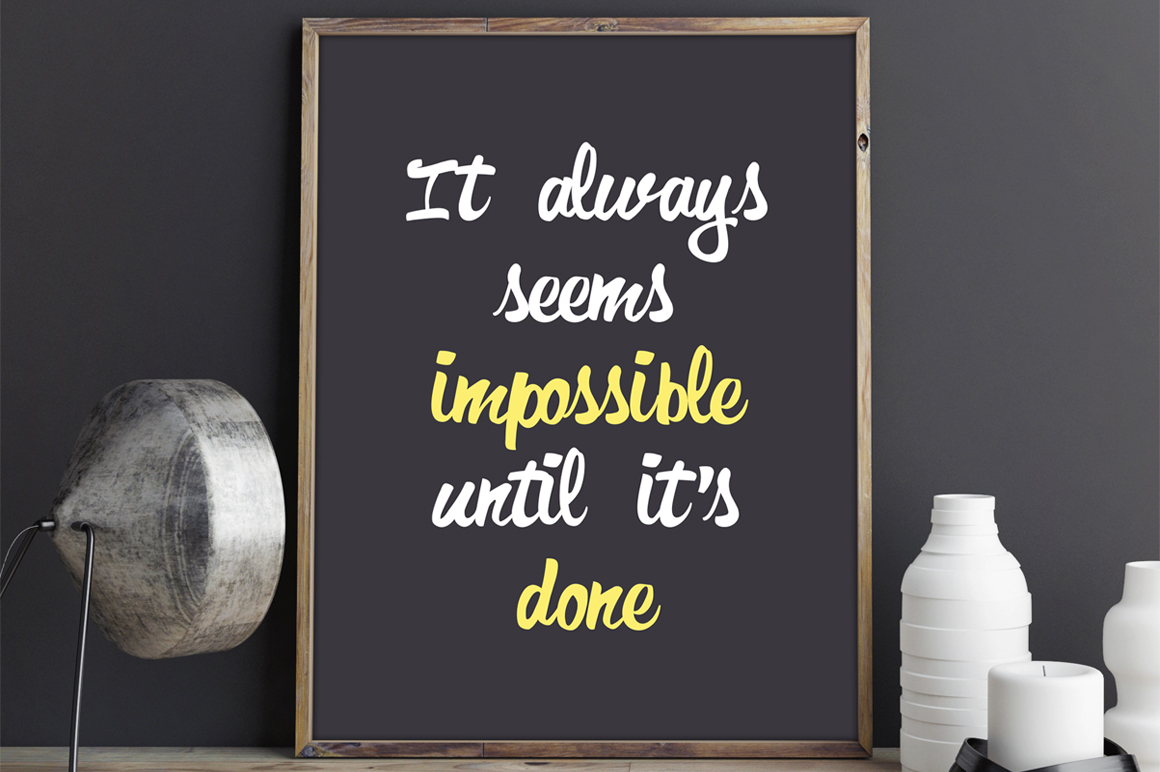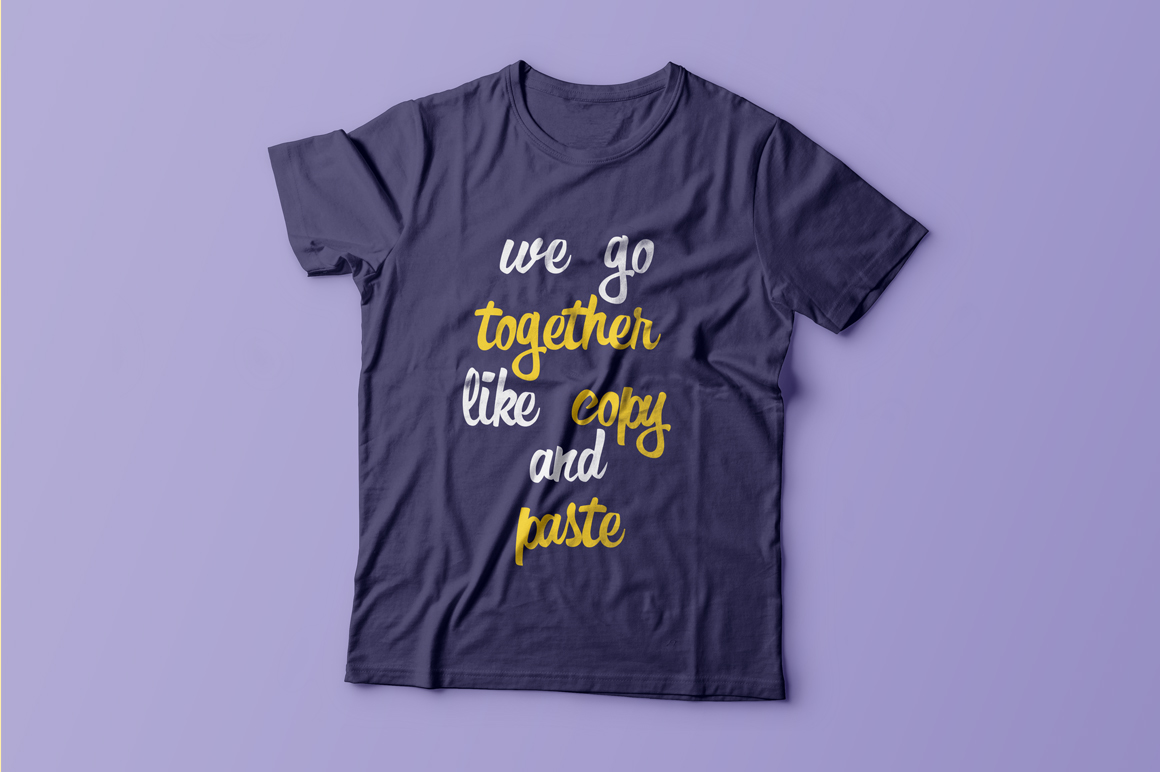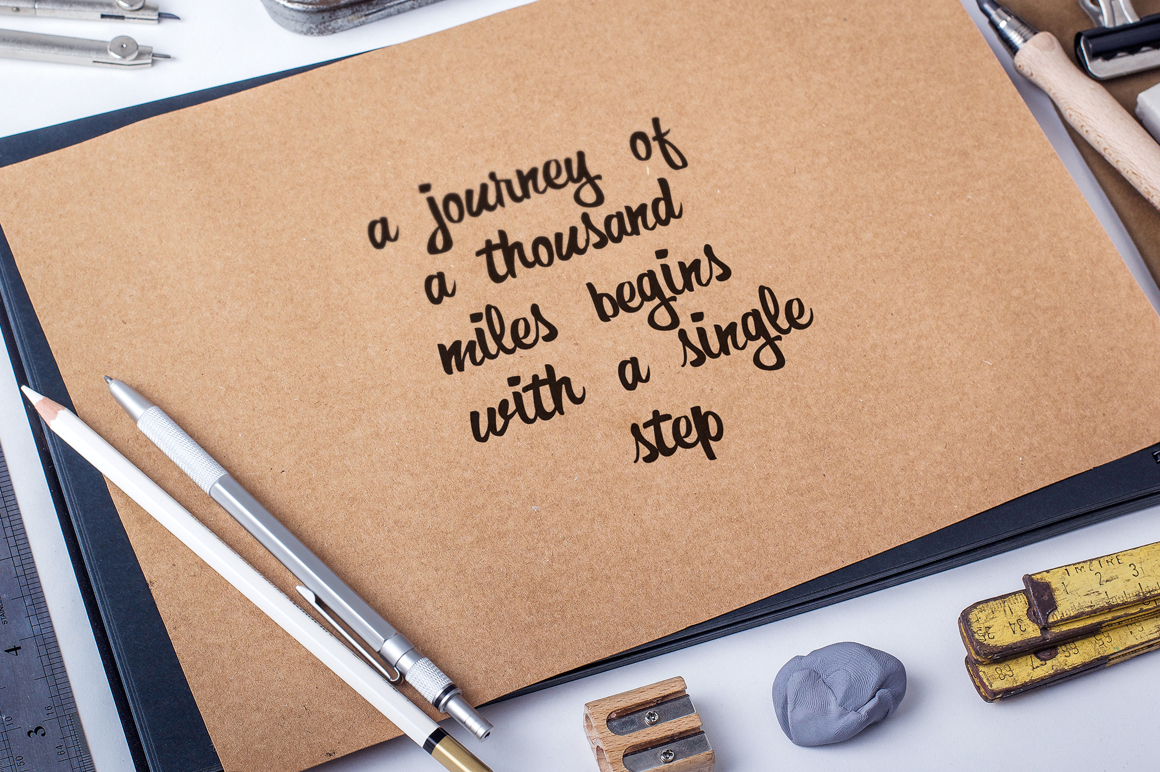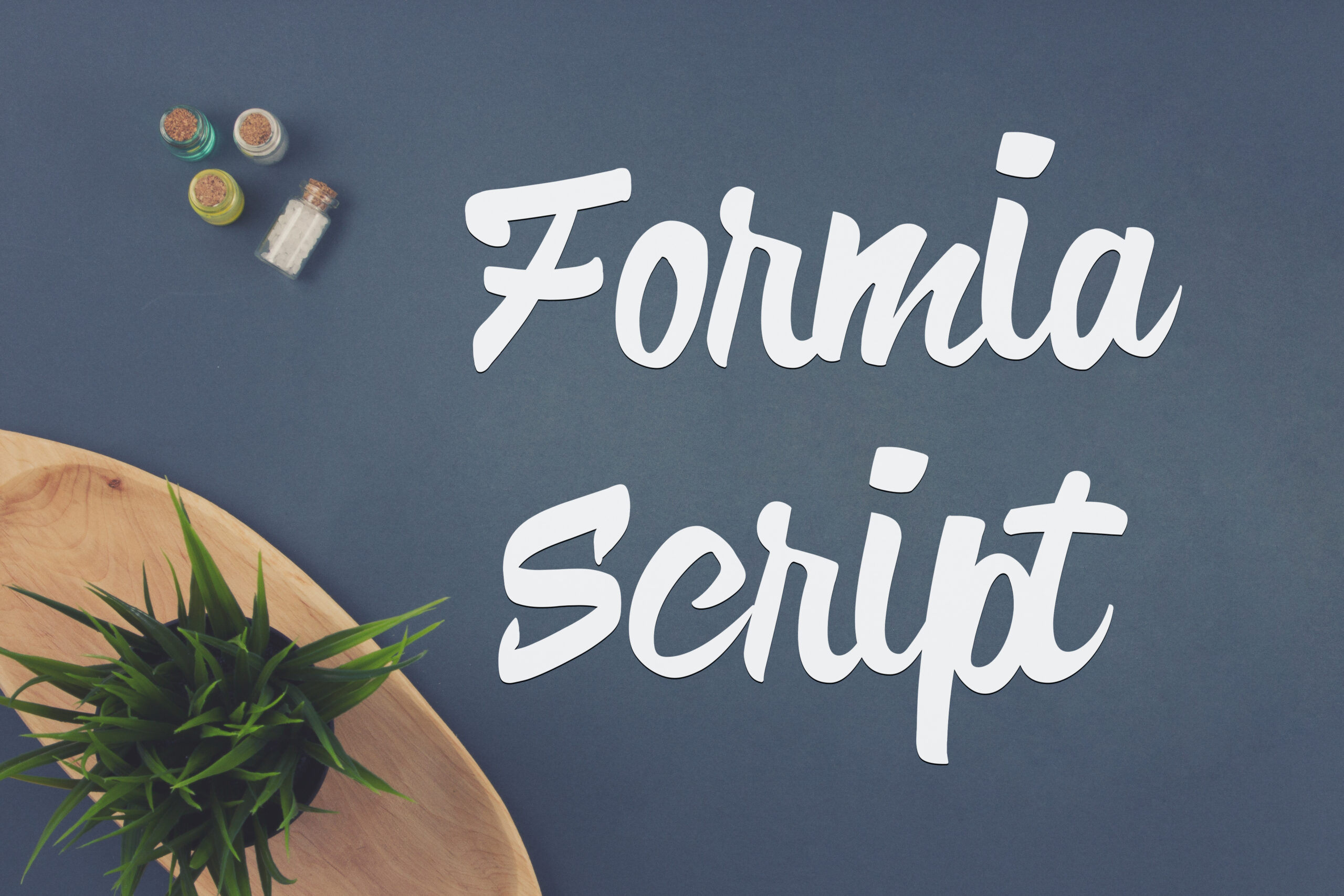
Formia Script Free Font
Formia Script free font is a handwritten typeface specially crafted for your projects. This font is 100% based on brush trace and it has special ligatures to combine the letters in a nice way. As seen above, Formia suits any kind of project. It looks pretty on poster, postcard or greeting card, merchandise, and product design, also perfect on t-shirt or apparel. This font is free to use for both personal and commercial use.